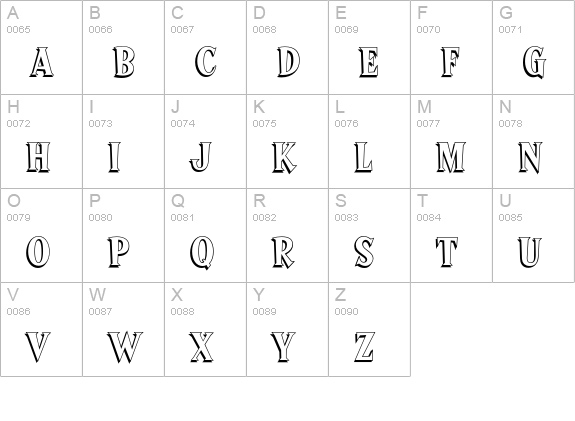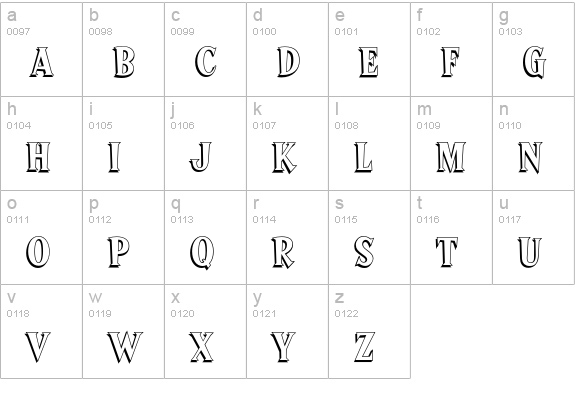
Sprocket Deluxe Font Details
Introducing the magnificent Sprocket Deluxe font, a true gem among the vast ocean of typography. With its sleek and modern design, this font is bound to captivate and elevate any project it graces. Sprocket Deluxe is a versatile typeface that effortlessly blends elegance with a touch of playfulness, making it perfect for a wide range of creative endeavors. This font boasts an extensive character set, including uppercase and lowercase letters, numbers, punctuation marks, and special symbols. Each character is meticulously crafted, ensuring a flawless and polished appearance that will impress even the most discerning eyes. The precise curves and clean lines of Sprocket Deluxe lend a sense of sophistication and professionalism to any design, while still maintaining a sense of approachability and warmth. But perhaps the most remarkable aspect of Sprocket Deluxe is that it is absolutely free. Yes, you read that right. This extraordinary font, with its impeccable quality and unrivaled aesthetic appeal, is freely available to download at FontsMarket.com. Now, designers and creatives from all walks of life can access this stunning font without any cost or restrictions. Whether you're working on branding materials, logo designs, packaging, posters, or any other visual project, Sprocket Deluxe will undoubtedly elevate your work to new heights. Its versatility allows for seamless integration into various styles and themes, ensuring that every design you create with this font will exude a unique and captivating charm. So, why wait? Don't miss out on this incredible opportunity to enhance your creative arsenal with the remarkable Sprocket Deluxe font. Download it today, free of charge, at FontsMarket.com, and unlock a world of endless possibilities in the realm of typography.